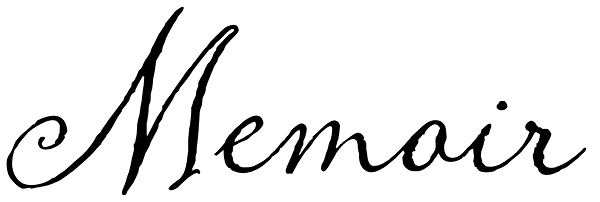
Memoir
Taking inspiration from 18th century handwritten letters, journals and documents, Memoir is a romantic yet robust design. Its textured profile speaks of surface and age, but this face will look very much at home in contemporary design. Useful for...